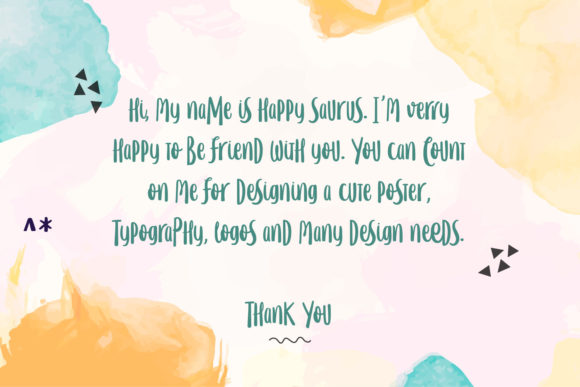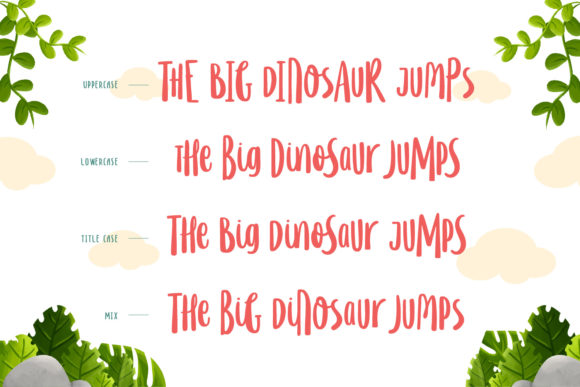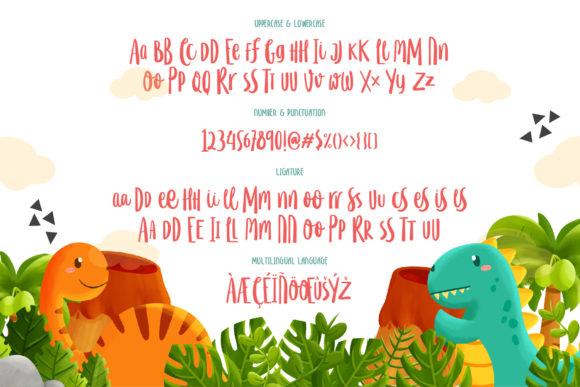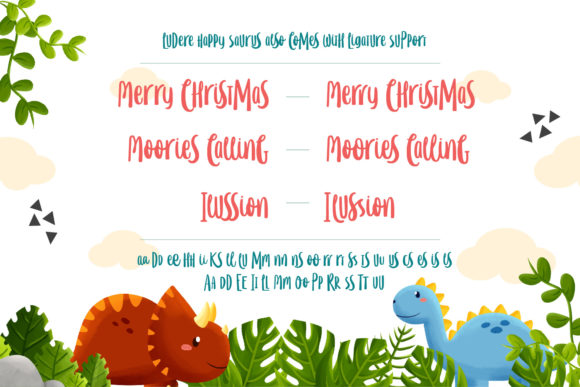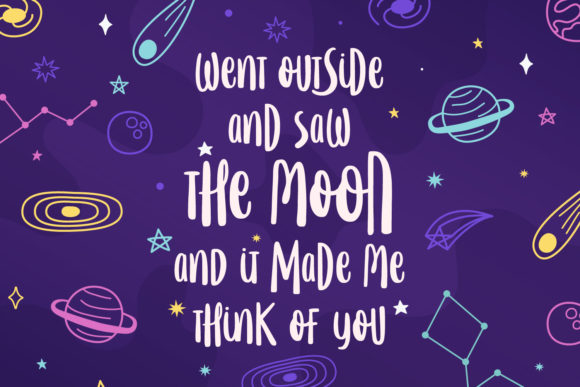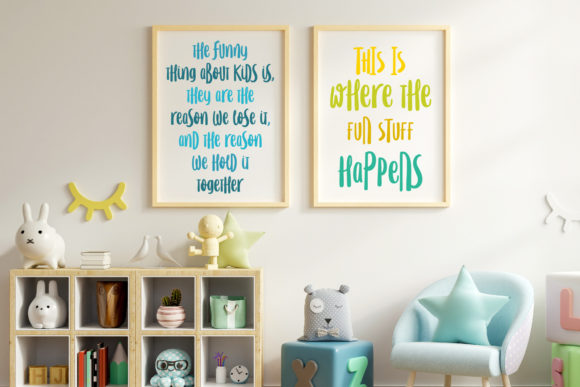
Introducing Happy Saurus: The Cute and Quirky Handwritten Font to Elevate Your Designs
Are you tired of using the same old fonts in your designs? Do you want to add a touch of personality and whimsy to your creative projects? Look no further than Happy Saurus, a delightful handwritten font that’s sure to bring a smile to your face. In this article, we’ll dive into the world of Happy Saurus, exploring its unique features, benefits, and uses, and show you how this beautiful font can take your designs to the next level.
The Story Behind Happy Saurus
Happy Saurus is a one-of-a-kind handwritten font that’s been carefully crafted to bring a sense of joy and playfulness to your designs. Its quirky and charming letterforms are perfect for designers, crafters, and anyone looking to add a personal touch to their creative projects. Whether you’re working on a branding project, a craft tutorial, or a social media graphic, Happy Saurus is the perfect choice.
What Makes Happy Saurus So Special?
So, what sets Happy Saurus apart from other fonts? Here are just a few of its unique features:
- Cute and Quirky: Happy Saurus is a truly one-of-a-kind font that’s sure to stand out in any design. Its playful letterforms are perfect for adding a touch of whimsy to your projects.
- Handwritten with Love: This font has been carefully handcrafted with love and attention to detail, giving it a personal and authentic feel.
- Easy to Read: Despite its quirky nature, Happy Saurus is surprisingly easy to read, making it perfect for use in a variety of design applications.
- Versatile: Happy Saurus is a versatile font that can be used in a wide range of design projects, from branding and advertising to crafting and DIY tutorials.
How to Use Happy Saurus in Your Designs
Now that you know a little bit about Happy Saurus, let’s talk about how to use it in your designs. Here are a few ideas to get you started:
- Branding and Logo Design: Use Happy Saurus to create a unique and memorable brand identity that sets you apart from the competition.
- Crafting and DIY Tutorials: Add a personal touch to your crafting and DIY tutorials with Happy Saurus, making them more engaging and fun to follow.
- Social Media Graphics: Use Happy Saurus to create eye-catching social media graphics that are sure to grab attention and drive engagement.
- Invitations and Stationery: Add a touch of whimsy to your invitations, stationery, and other paper goods with Happy Saurus.
Tips and Tricks for Getting the Most Out of Happy Saurus
Here are a few tips and tricks for getting the most out of Happy Saurus:
- Experiment with Colors: Happy Saurus looks great in a variety of colors, so don’t be afraid to experiment and find the perfect hue for your design.
- Mix and Match: Combine Happy Saurus with other fonts and design elements to create a unique and visually interesting design.
- Play with Size: Happy Saurus looks great in a variety of sizes, from large and bold to small and delicate.
| Font Name | Happy Saurus Font |
| Author | luderestudios |
In conclusion, Happy Saurus is a one-of-a-kind handwritten font that’s sure to bring a touch of joy and whimsy to your designs. With its quirky and charming letterforms, ease of use, and versatility, Happy Saurus is the perfect choice for designers, crafters, and anyone looking to add a personal touch to their creative projects. So why wait? Download Happy Saurus today and start elevating your designs to the next level!